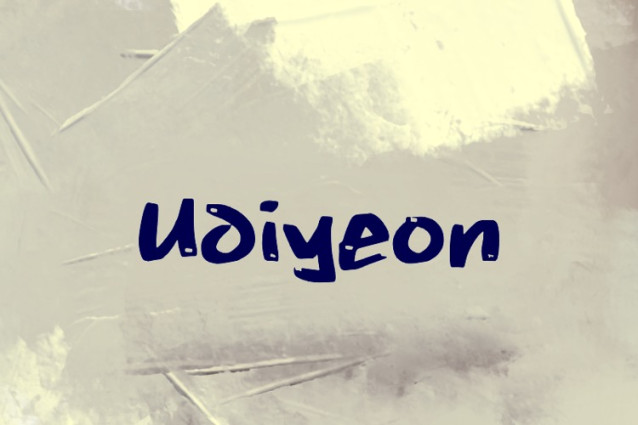
Udiyeon Font
Udiyeon Font is a chunky, comic, and cartoon display font. With its neat and joyful personality, this font will enhance any project you wish to create!